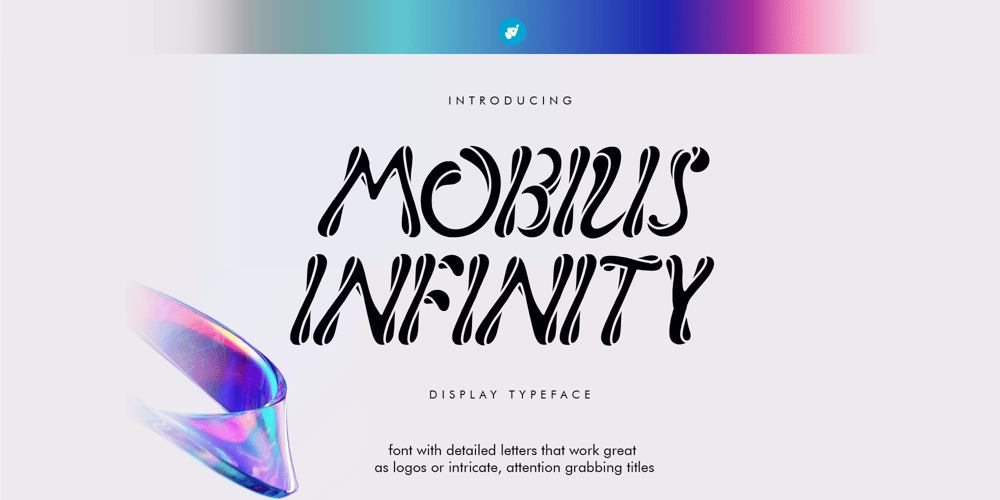
Mobius Infinity Font Family was designed by Wahyu Aji Prasetyo and published by WAP Type. Mobius Infinity contains 1 styles and family package options. Font with detailed letters that work great as logos or intricate, attention grabbing titles. Mobius Infinity is a special font for your logo & branding